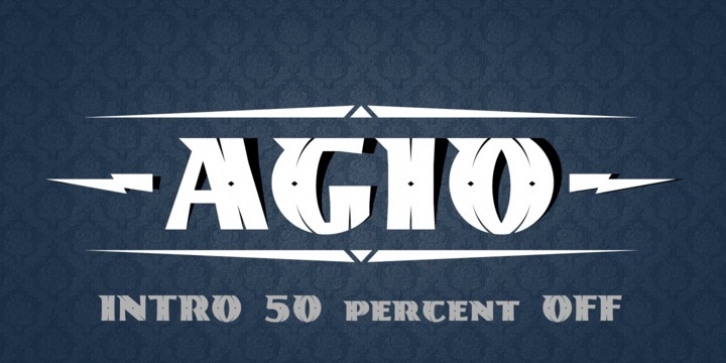
Agio - a heavy contrast style font with cuts on the top of the some glyphs and spurs on top left corner of every glyphs. Also Agio has some decorative styles for glyphs and decorative elements.